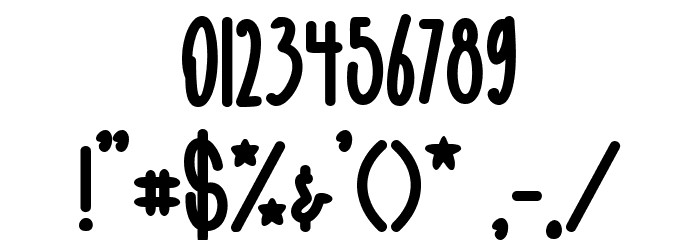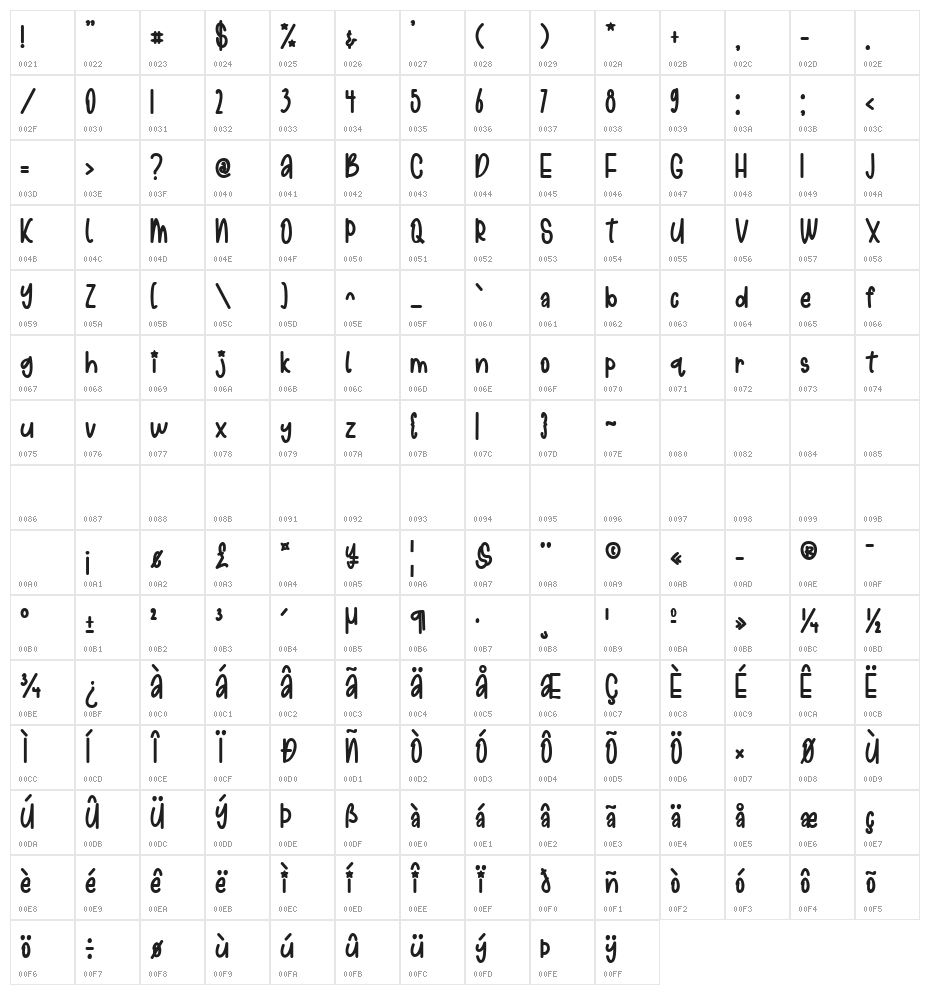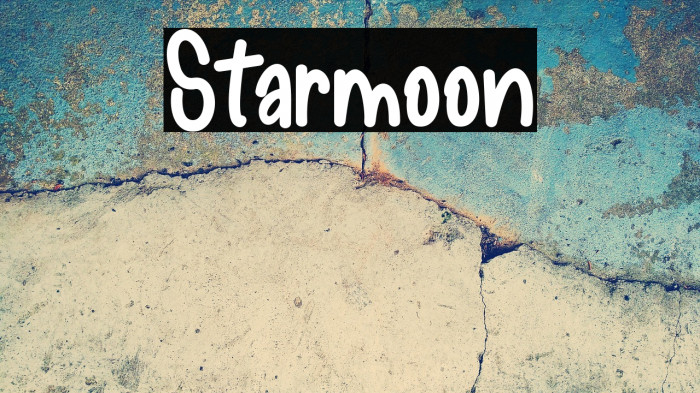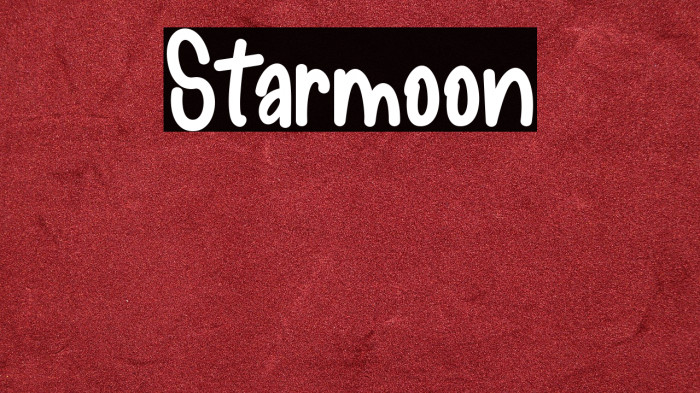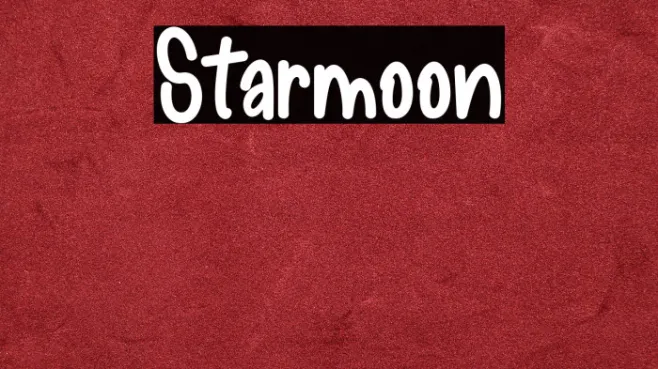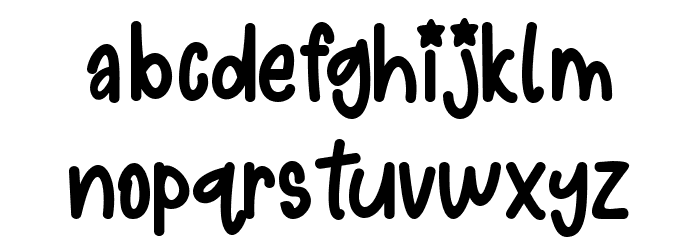
Starmoon Font
Starmoon Description
This playful and whimsical font features a handwritten style with a casual, friendly appearance. The letters are bold and rounded, giving them a soft and approachable feel. The uppercase and lowercase letters maintain a consistent style, with slight variations that add to the hand-drawn charm. The numbers and special characters are equally playful, fitting seamlessly with the overall aesthetic. This font is perfect for projects that require a personal touch, such as invitations, greeting cards, or children's book covers. Its unique style makes it stand out while remaining legible and versatile.
| Proposed Projects | Ideal for invitations, greeting cards, children's books, and playful branding. |